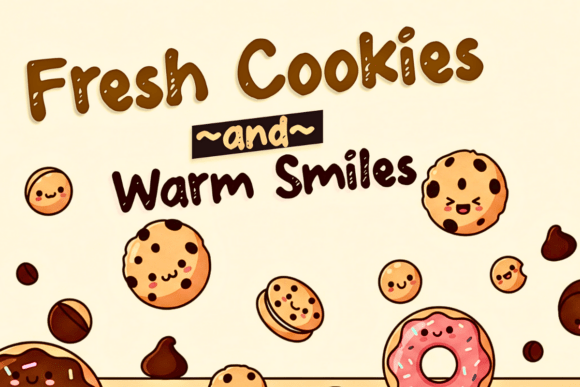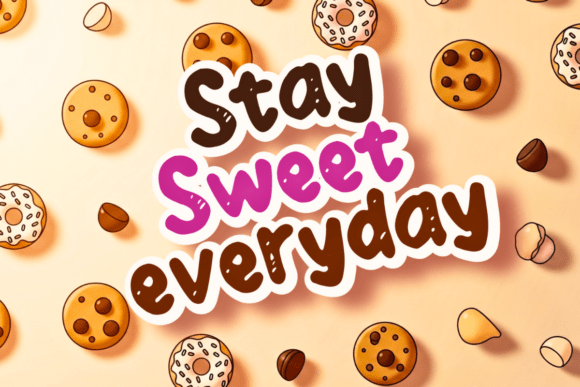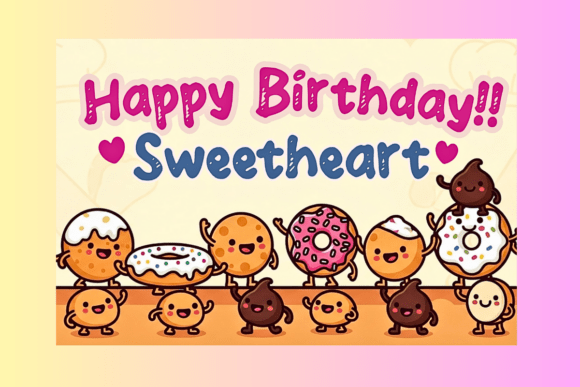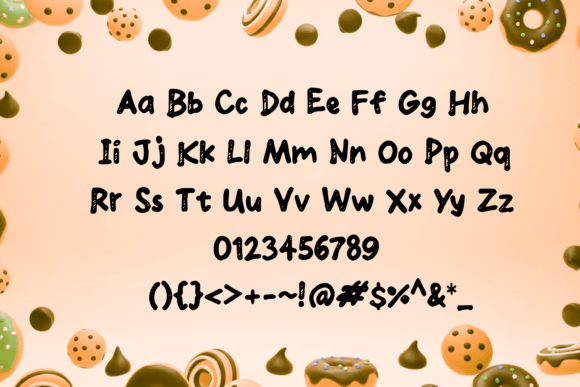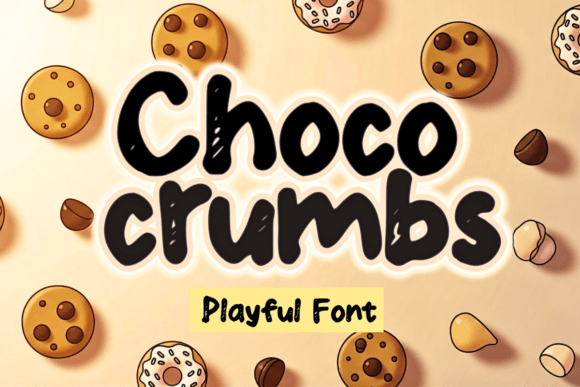
Introducing Choco Crumbs Font: The Sweetest Addition to Your Design Toolbox
Are you looking for a font that can add a touch of whimsy and charm to your designs? Look no further than Choco Crumbs, a delightful handwritten display font that’s sure to satisfy your sweet tooth. With its chunky, cheerful letterforms, Choco Crumbs is the perfect choice for designers and crafters who want to add a dash of fun and personality to their projects.
A Font that’s as Sweet as it Looks
Choco Crumbs is a font that’s been carefully crafted to evoke the feeling of a swirl of chocolate. Its chunky, hand-drawn letterforms are bursting with personality, making it the perfect choice for projects that need a joyful, hand-crafted vibe. Whether you’re designing for a bakery brand, a birthday invitation, or a children’s project, Choco Crumbs delivers a warm, playful energy that’s as inviting as a fresh batch of cookies.
So, what can you use Choco Crumbs for? The possibilities are endless! Here are just a few ideas to get you started:
- Children’s projects: Choco Crumbs is perfect for kids’ party invitations, educational materials, and activity sheets.
- Whimsical logos: Add a touch of fun and personality to your brand with a custom logo designed using Choco Crumbs.
- Snack packaging: Make your snack packaging stand out with a label or wrapper designed using Choco Crumbs.
- Fun posters: Create eye-catching posters for events, promotions, or social media campaigns using Choco Crumbs.
Why Choose Choco Crumbs?
So, why should you choose Choco Crumbs over other fonts? Here are just a few reasons:
- Unique and eye-catching: Choco Crumbs is a one-of-a-kind font that’s sure to grab attention.
- Easy to read: Despite its chunky, hand-drawn appearance, Choco Crumbs is surprisingly easy to read, even at smaller sizes.
- Versatile: Choco Crumbs can be used for a wide range of projects, from digital designs to print materials.
- Fun and playful: Choco Crumbs adds a touch of fun and personality to any design, making it perfect for projects that need a bit of whimsy.
Tips for Using Choco Crumbs
Here are a few tips for getting the most out of Choco Crumbs:
- Use it sparingly: Choco Crumbs is a bold font, so use it sparingly to avoid overwhelming your design.
- Pair it with a neutral font: Pair Choco Crumbs with a neutral font to create a balanced and harmonious design.
- Experiment with colors: Choco Crumbs looks great in a variety of colors, so don’t be afraid to experiment and find the perfect hue for your design.
In conclusion, Choco Crumbs is a delightful handwritten display font that’s sure to add a touch of charm and whimsy to any design. With its chunky, cheerful letterforms and versatile design, Choco Crumbs is perfect for a wide range of projects, from children’s projects to whimsical logos and snack packaging. So why not give Choco Crumbs a try and see how it can add a dash of fun and personality to your designs?